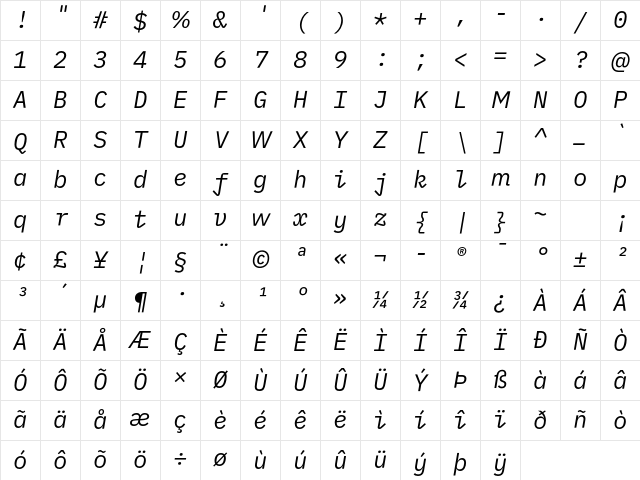
Complete iA Writer Duospace Italic glyph index. Displaying only characters natively supported by iA Writer Duospace Italic font.
iA Writer Duospace is a composed and adaptable typeface that performs quietly and consistently across a wide range of design contexts. The slanted form adds forward momentum and visual energy.
Pro Tip: Use iA Writer Duospace for emphasis, pull quotes, and subheadings where its slanted energy can add rhythm to the layout.